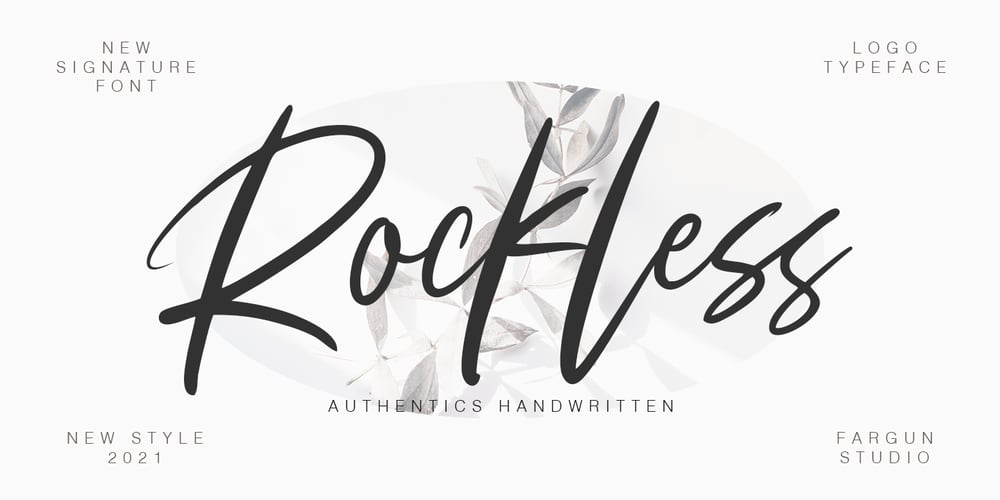
Rockless Font Family was designed by Fajar Gunawan and published by Fargun Studio. Rockless contains 1 styles and family package options. Rockless is handwritten stylish copperplate calligraphy fonts, combines from copperplate to contemporary typeface with a dancing baseline, classic and elegant touch. Can be used for various purposes. such as headings, signature, logos, wedding invitation, t-shirt, letterhead, signage, lable, news, posters, badges etc.Features All Uppercase and Lowercase Number & Symbol Supported Languages Ligatures PUA Encoded